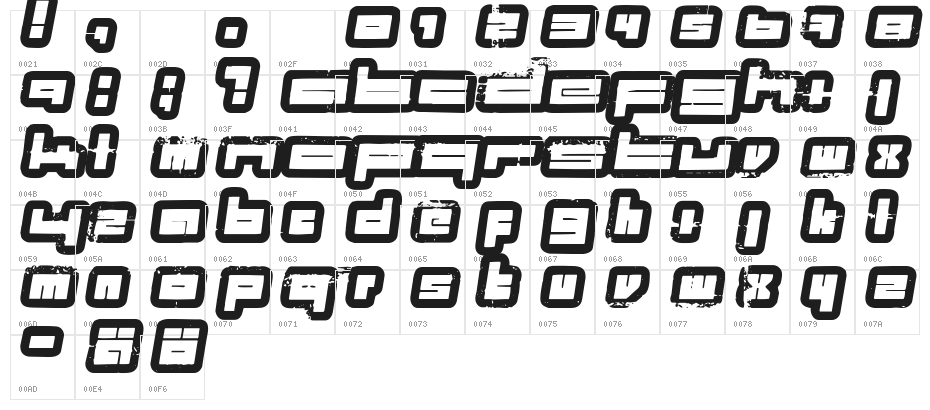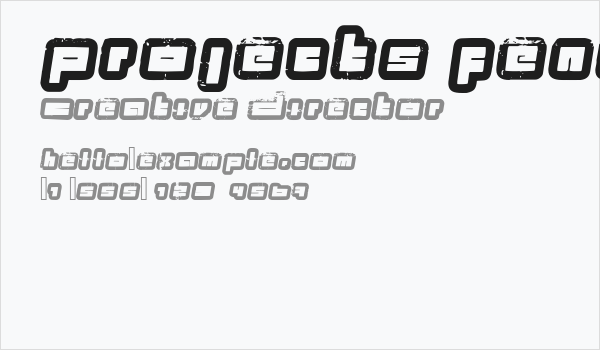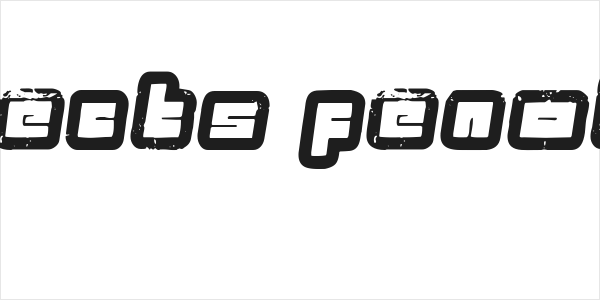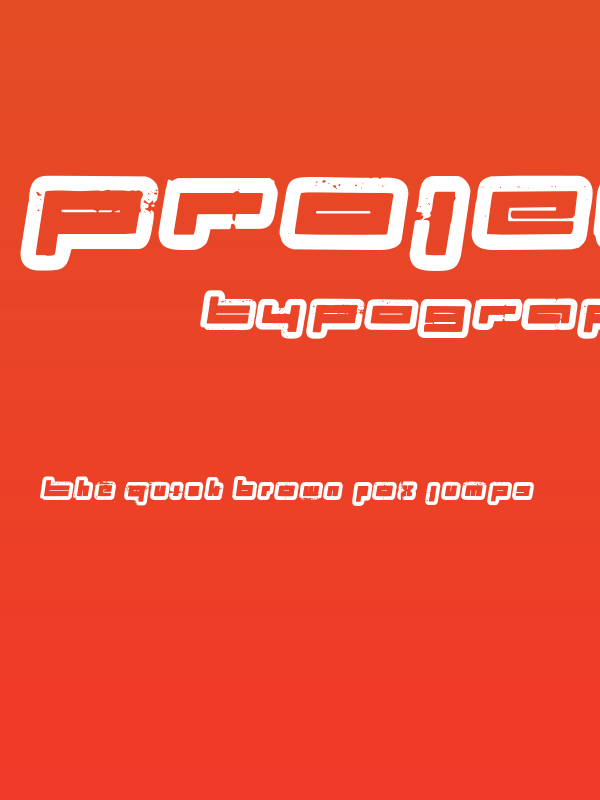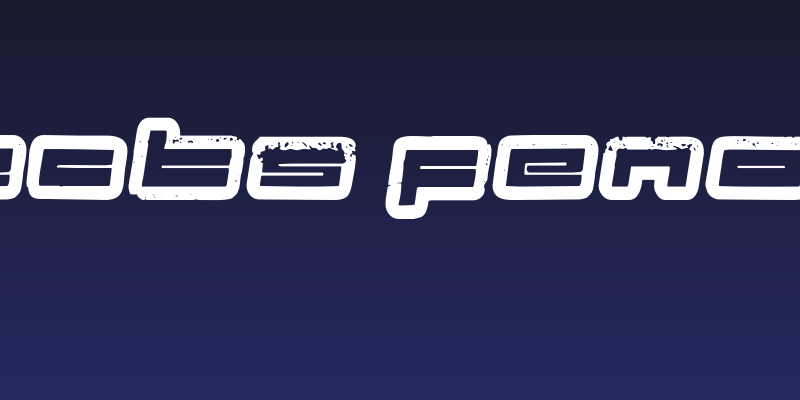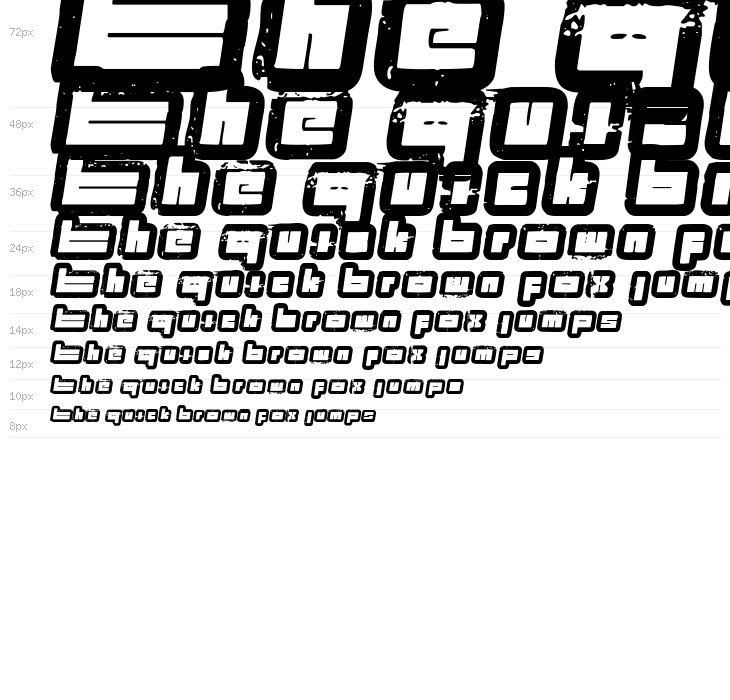
projects fenotype Font
This font features a bold, modern design with a distressed texture that gives it a rugged, industrial feel. The characters are enclosed in a thick, rounded outline, creating a striking contrast between the filled and unfilled spaces. This style is reminiscent of stencil or graffiti art, making it ideal for projects that require a bold statement. The uppercase and lowercase letters maintain a consistent style, with the numbers and special characters following suit. The font's unique appearance is both eye-catching and versatile, suitable for a variety of creative applications.
| Proposed Projects | Ideal for posters, album covers, streetwear branding, and urban-themed designs. |